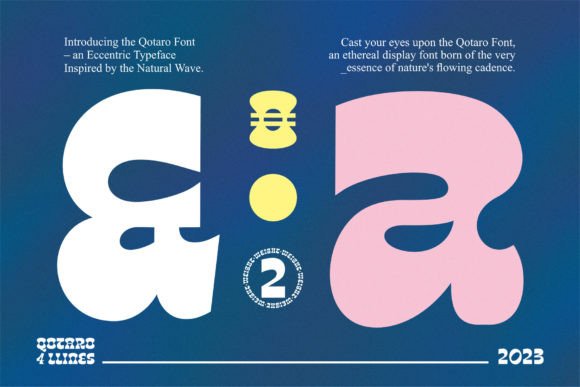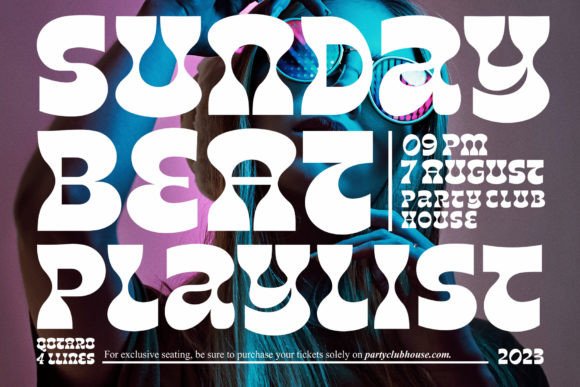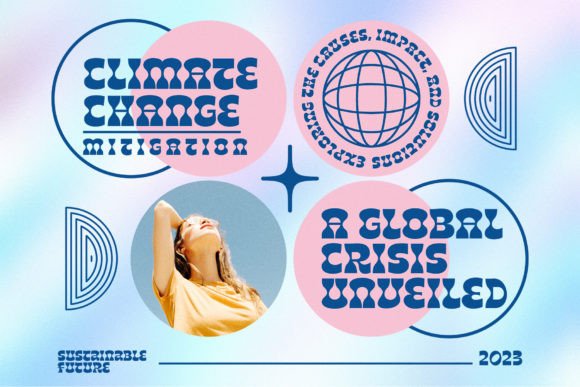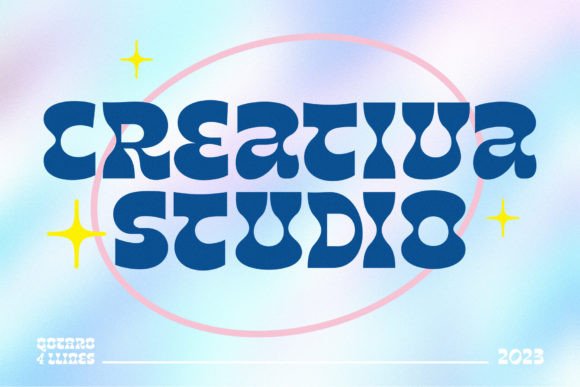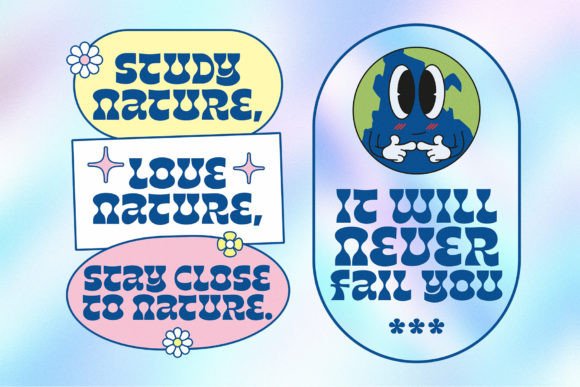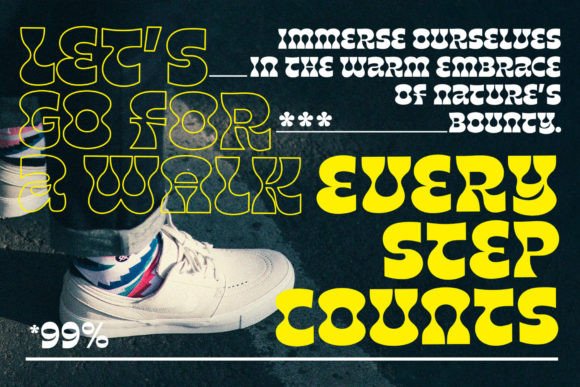
Introduction to Qotaro Font
As designers, we’ve all been there – stuck on a creative project, searching for that perfect font to elevate our design to the next level. The search can be tedious, but what if I told you that there’s a font that transcends trends and borders, speaking to audiences around the world in a language of elegance and sophistication?
Meet the Qotaro Font, a timeless design resource that adds a touch of retro glamour to any project. Its universal charm makes it a valuable asset for designers, allowing them to create high-quality designs that stand out from the crowd. With a free download available, designers can unlock the full potential of this stunning font and take their creative projects to new heights.
Whether you’re working on a personal project or collaborating with a team, the Qotaro Font is sure to impress. Its transparent background and sleek design make it the perfect addition to any design, and with its high-quality aesthetic, it’s sure to elevate your work to new levels of sophistication.
Key Features of Qotaro Font
- Features a unique and modern design style, suitable for a wide range of applications
- Perfect for graphic designers, digital artists, and anyone in need of a high-quality font for their design project
Honest Review: Qotaro Font
As a designer, I’m always on the lookout for high-quality design resources that can elevate my creative projects. The Qotaro Font caught my eye, and I’m excited to share my honest review with you.
- ✨ High-quality design with a unique, modern feel that’s perfect for minimalist projects.
- ✨ The font is highly customizable, with support for transparent backgrounds, which makes it perfect for creating visually appealing designs.
- ⚠️ The font is not as extensive as some other font libraries, which may limit its versatility for more complex projects.
- ⚠️ Some users may find the font’s modern aesthetic too simplistic for certain design applications.
Overall, I’m impressed with the Qotaro Font. It’s a great resource for designers looking for a high-quality, modern font that’s easy to use and customize. While it may not be the most extensive font library, it’s a great addition to any designer’s toolkit.
Tips for Getting the Most Out of Qotaro Font
For the best results, use the Qotaro Font on a high-quality design resource with a transparent background. This will allow the font to stand out and add a professional touch to your design. You can also experiment with different font sizes and styles to find the perfect fit for your creative project.
The Qotaro Font is perfect for use in logos, branding materials, and other design projects where a unique and stylish font is needed. It’s also great for use in digital design projects, such as social media graphics and website headers.